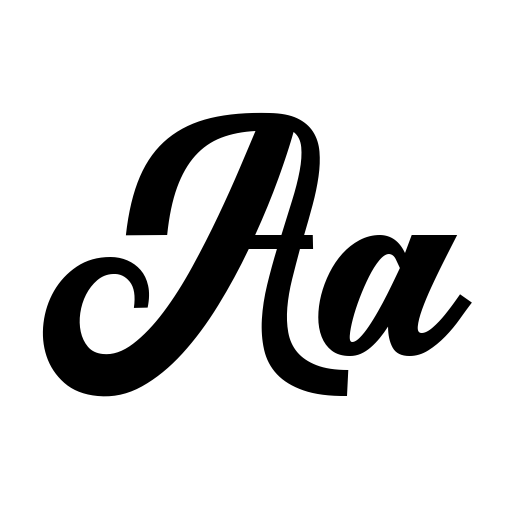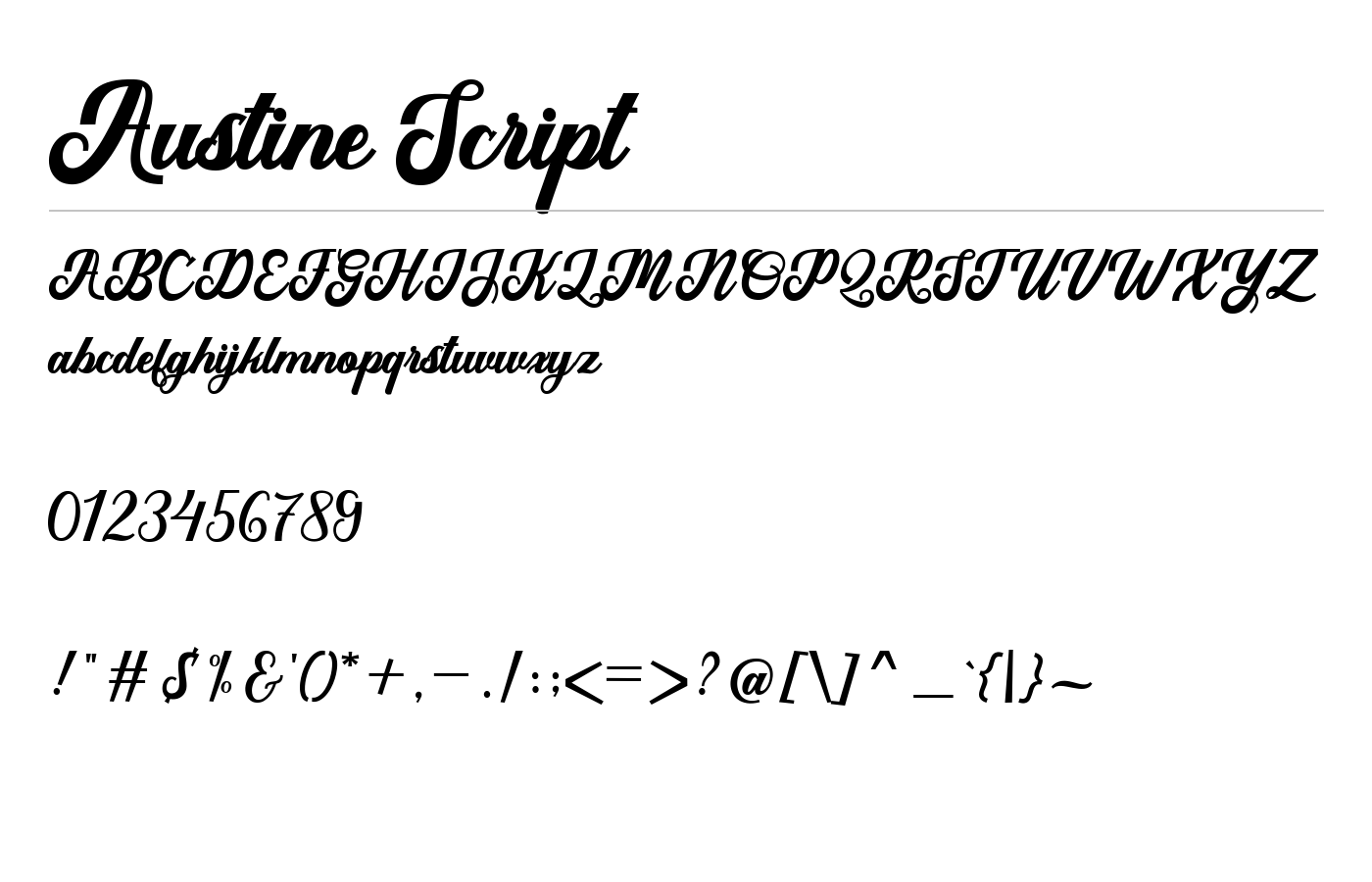
Austine Script is an elegant and flowing script font that features smooth, connected letterforms with a moderate contrast between thick and thin strokes. Its classic cursive style, with distinctive swashes and loops, makes it perfect for sophisticated branding, invitations, and logos that desire a refined, timeless look. This font works beautifully in designs where a touch of elegance and personality is needed, especially in headlines and decorative text.
Austine Script Font
About Austine Script Font
| Font family | Austine Script Font |
| Designer | letterfreshstudio |